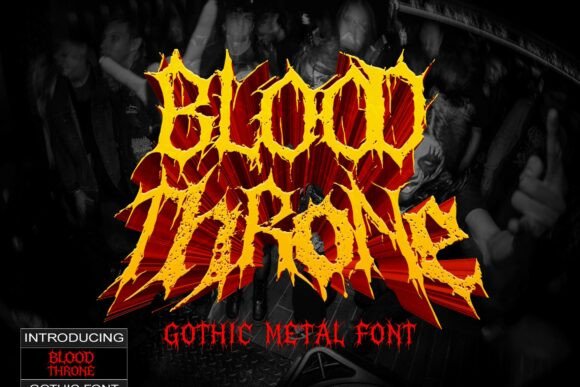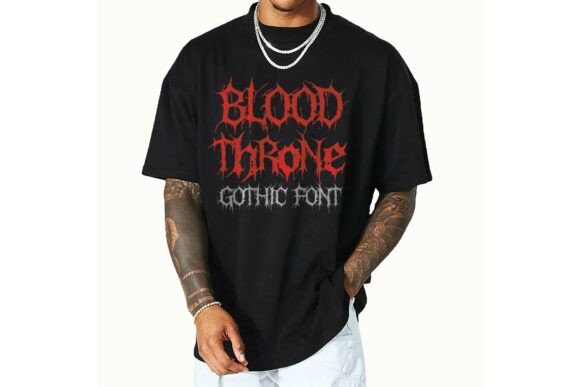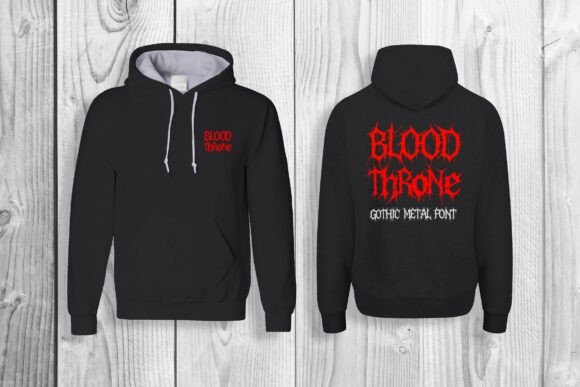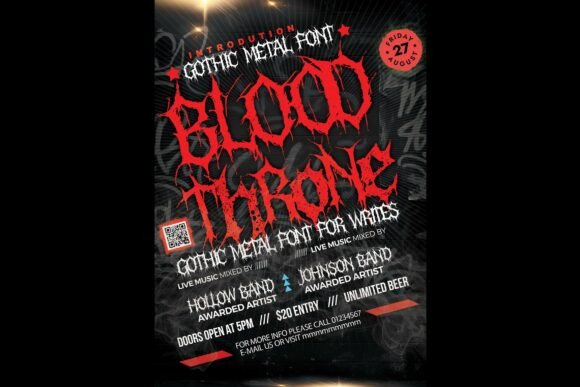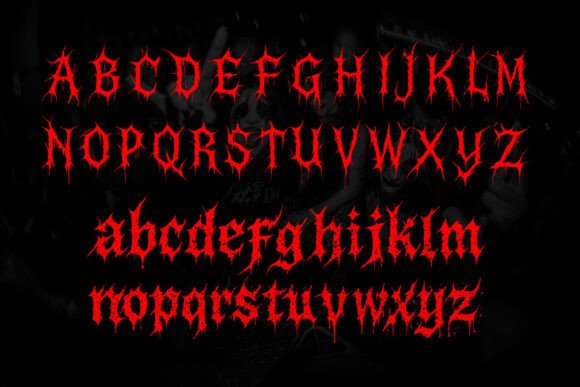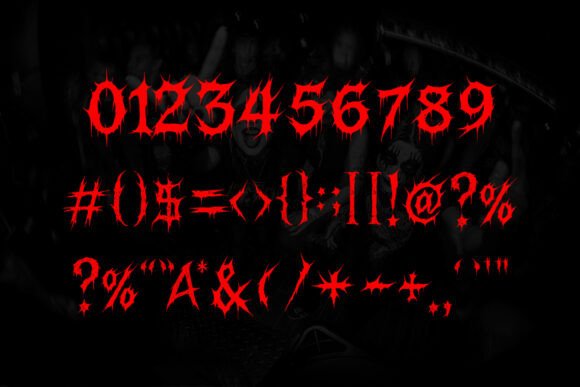
The Wild Side of Typography: Unleashing the Power of Blood Throne Font
I’ll never forget the design project that led me to discover the Blood Throne Font. I was working on a branding campaign for a streetwear label, and I needed a font that would capture the raw energy and edginess of the brand. After hours of scouring through font libraries and marketplaces, I stumbled upon this gem – Blood Throne. It was love at first sight! The font’s Gothic Chaos Style inspiration and bold, wild vibe instantly resonated with the brand’s aesthetic. In this article, I’ll share my experience with Blood Throne, its features, and how to make the most of it in your designs.
• ✅ Unapologetically bold and edgy, perfect for making a statement
• ✅ Extensive range of OpenType features, glyphs, and stylistic alternates
• ✅ Great for creating attention-grabbing headlines, titles, and logos
• ⚠️ May not be suitable for body text or lengthy content due to its bold nature
• ⚠️ Some characters may require manual kerning for optimal spacing
The Story Behind Blood Throne
Blood Throne was designed with the goal of capturing the unbridled energy of the streets. Inspired by the Gothic Chaos Style, the font’s creator aimed to craft a typeface that would be both rebellious and attention-grabbing. With its bold lines, sharp edges, and extensive range of OpenType features, Blood Throne is the perfect tool for designers who want to make a statement.
Q: What type of projects is Blood Throne best suited for?
A: Blood Throne is perfect for branding, logos, headlines, and titles that require a bold, edgy touch. It’s great for projects that need to stand out and make a statement.
Q: Can I use Blood Throne for body text?
A: While Blood Throne is highly legible, its bold nature makes it less suitable for lengthy body text. It’s best used for headlines, titles, and short paragraphs.
Q: Does Blood Throne support OpenType features?
A: Yes, Blood Throne has an extensive range of OpenType features, including ligatures, stylistic alternates, and glyphs. This allows for a high degree of customization and flexibility in your designs.